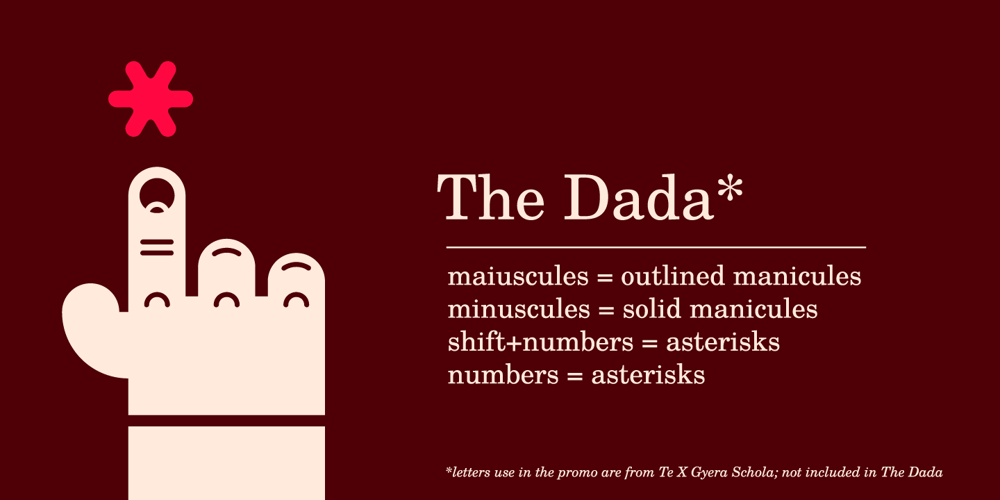
The Dada
The Dada font
The Dada Font Family was designed by Gabriel Figueiredo and published by Typeóca. The Dada contains 1 styles and family package options. The Dada* is a dumb idea that got way too far, but nonetheless, can still be quite useful for designers, illustrators and typesetters in need of manicules. * as with the foundry’s name, bonus pun for portuguese speakers only